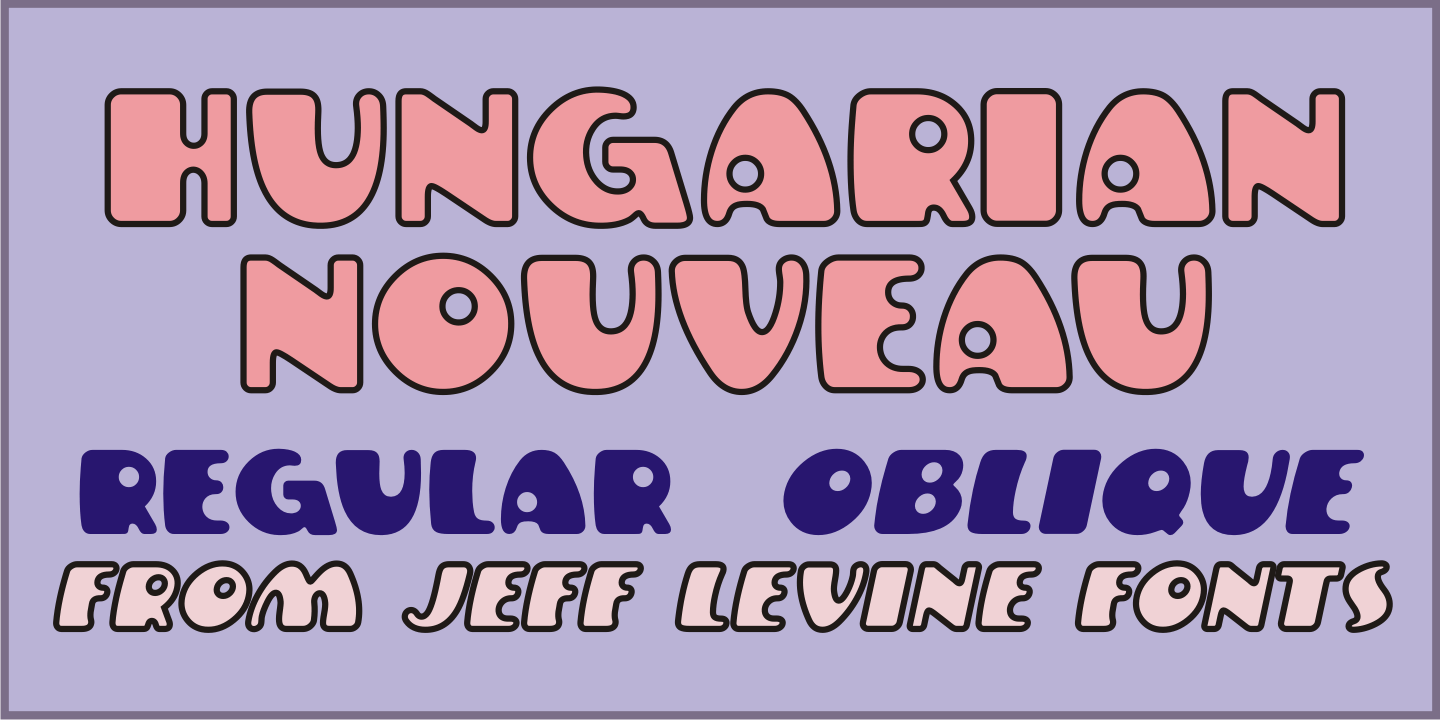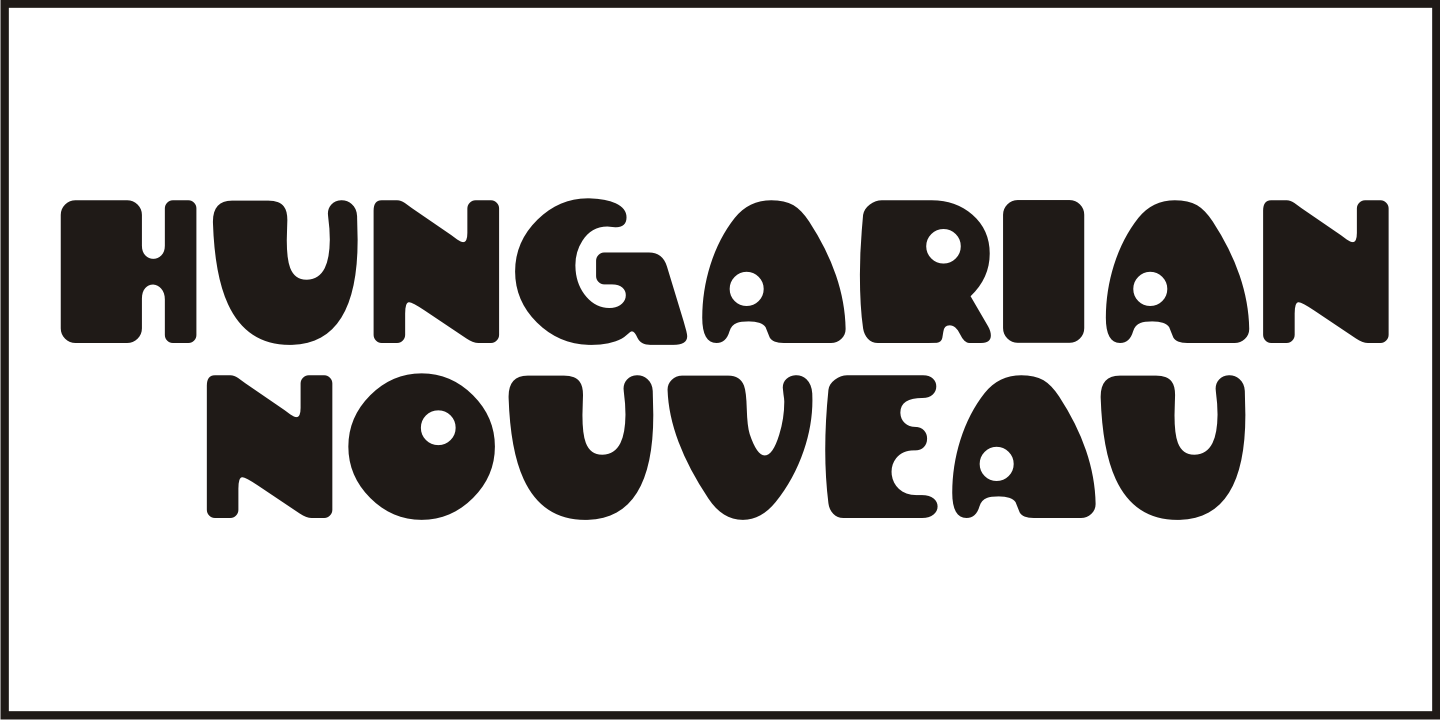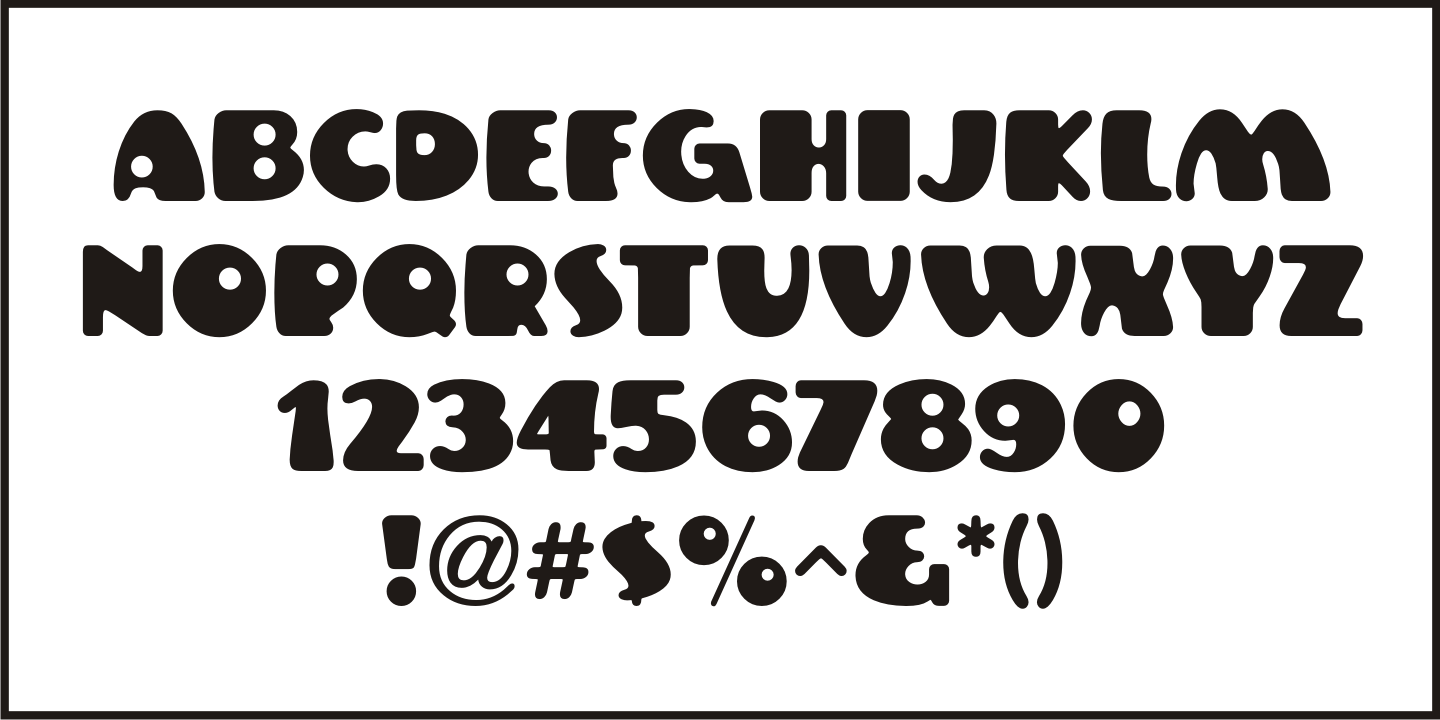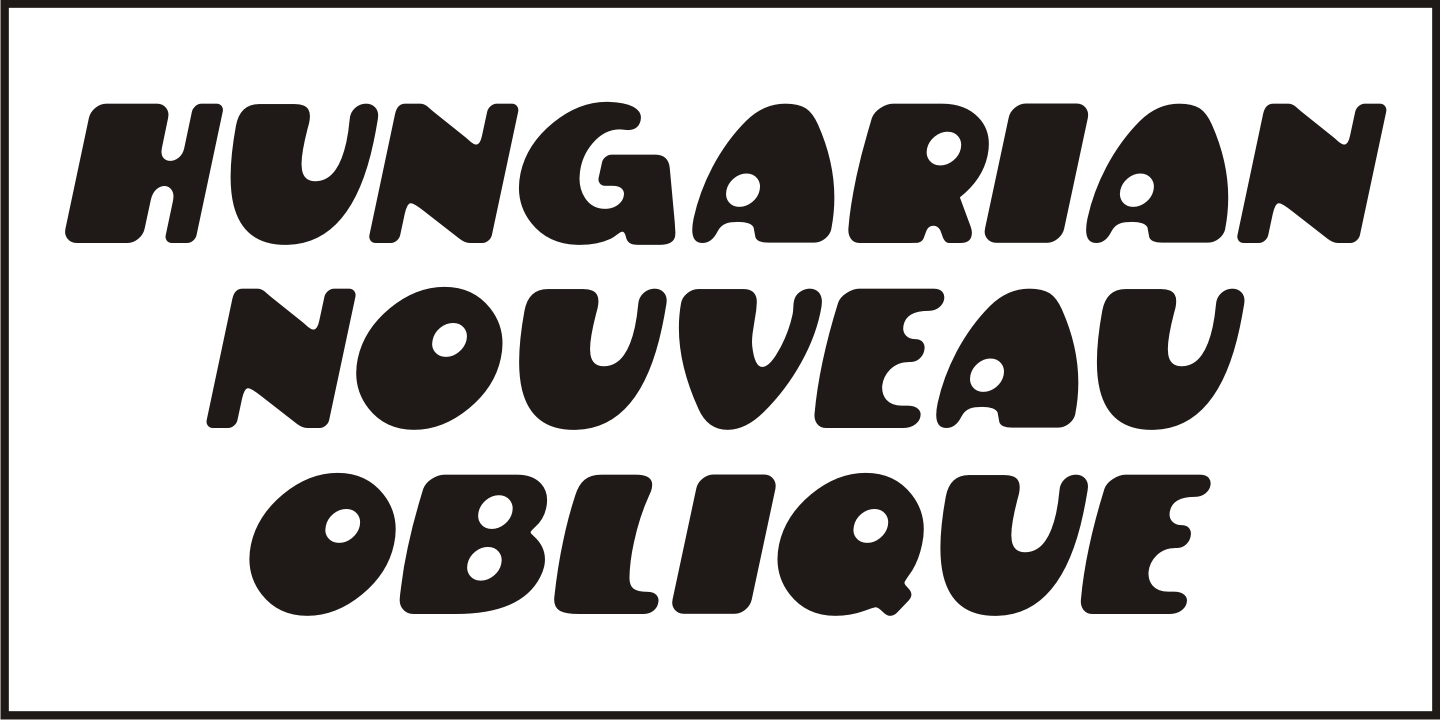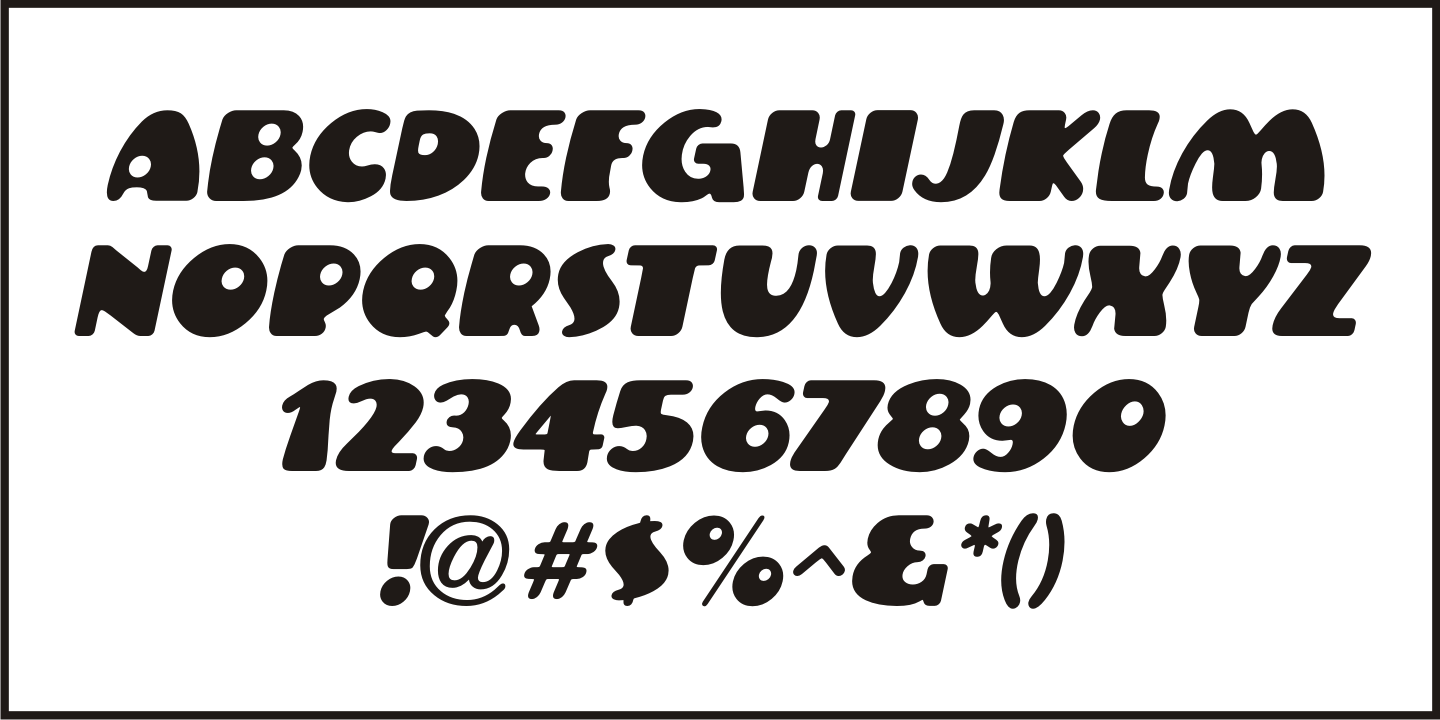
Hungarian Nouveau
A piece of sheet music from Hungary (circa1921) entitled 'Praerie Trott” offered up some playfully rounded hand lettering in a cartoon-like style.
This was the visual model for Hungarian Nouveau JNL, which is available in both regular and oblique versions.